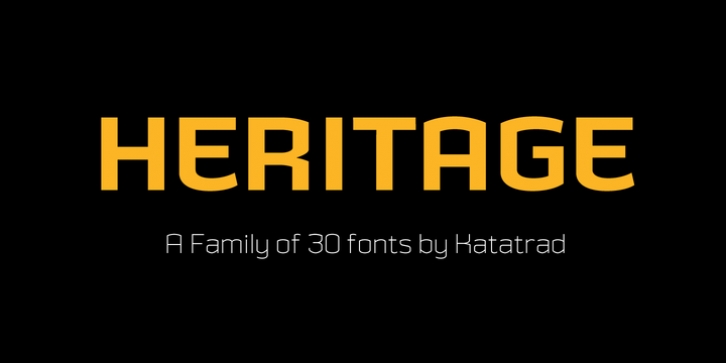
Publisher: Katatrad
Heritage Set is a display font. It was designed specifically for display, headline, logotype, branding, and similar applications. Heritage Set has been designed to equipped with three different widths; Narrow, Normal and Wide, addition to expanding weights to support various usabilities ranging from ExtraLight, Light, Regular, Bold and ExtraBold. Which makes with a Tabular Lining features support the creativities of the designer from the Font Menu.